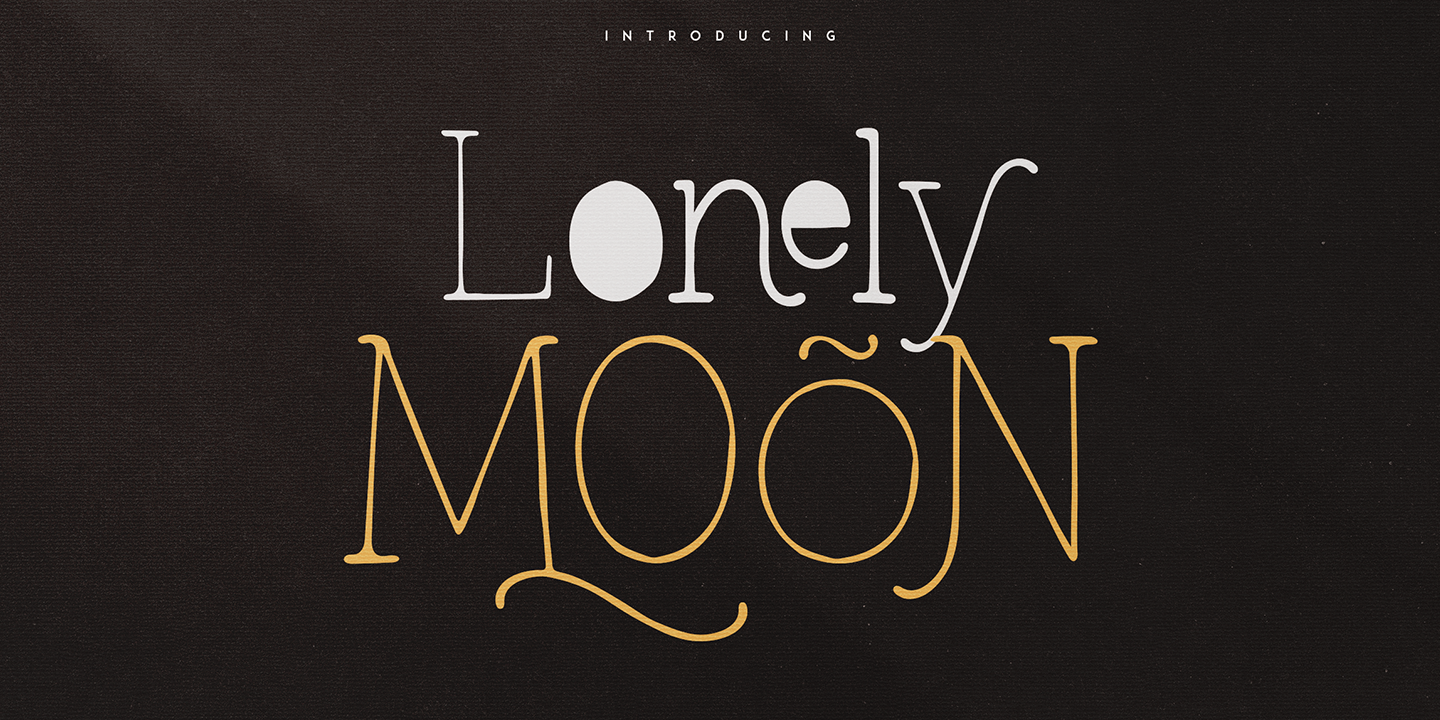
Lonely Moon VP Font is perfect for melancholic poetry collections, atmospheric music album covers, introspective art galleries, nocturnal photography studios, contemplative wellness centers, midnight café branding, solitary travel journals, and profound emotional storytelling projects.
This font is exciting because it captures the profound beauty of solitude with melancholic elegance and contemplative sophistication. Lonely Moon VP Font features ethereal letterforms with lunar-inspired curves that evoke the peaceful isolation of moonlit nights and introspective moments, making it ideal for projects that require authentic emotional depth and atmospheric character.
The Lonely Moon VP Font family includes regular, light, thin, and ethereal variants, along with melancholic alternates and contemplative ligatures that enhance its solitary character. Each weight maintains the font's atmospheric aesthetic while providing different levels of emotional expression for various introspective and artistic design applications.
Whether you're developing contemplative artistic brands, creating compelling emotional materials, or designing atmospheric storytelling campaigns, Lonely Moon VP Font Free Download delivers exceptional depth and melancholic appeal. Its distinctive solitary style makes it an excellent choice for designers seeking to add genuine emotional resonance and atmospheric sophistication to their projects. The font's versatility extends from poetry book covers to contemplative wellness branding, ensuring consistent performance across all introspective applications. With its thoughtfully crafted letterforms and lunar proportions, this typeface provides professional results that touch souls deeply and establish powerful emotional presence with its unmistakable melancholic character and profound atmospheric elegance.